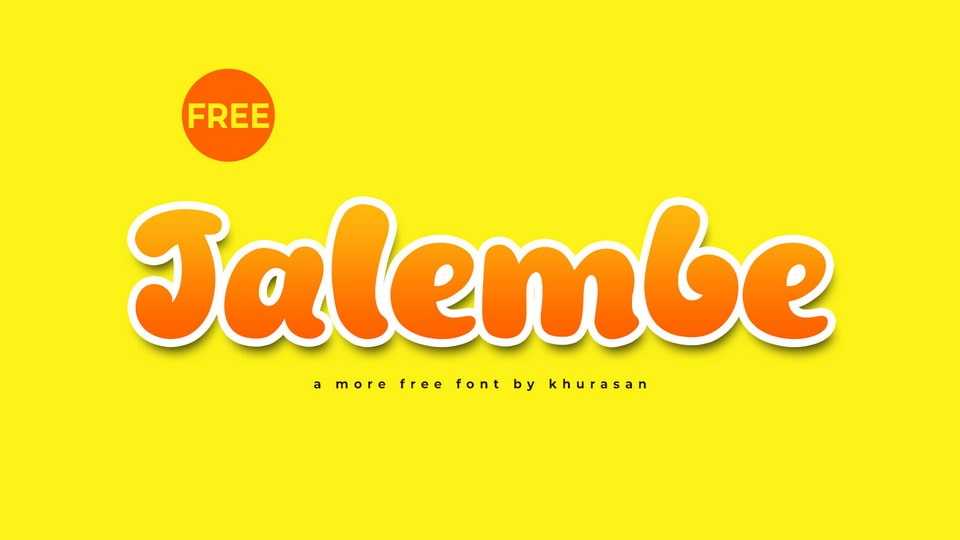
Download Jalembe font, a lively handcrafted cartoon typeface that brings a burst of joy and playful energy to your designs. Jalembe font stands out with its bold presence, making it perfect for projects that demand attention and a dash of cheerful spontaneity.